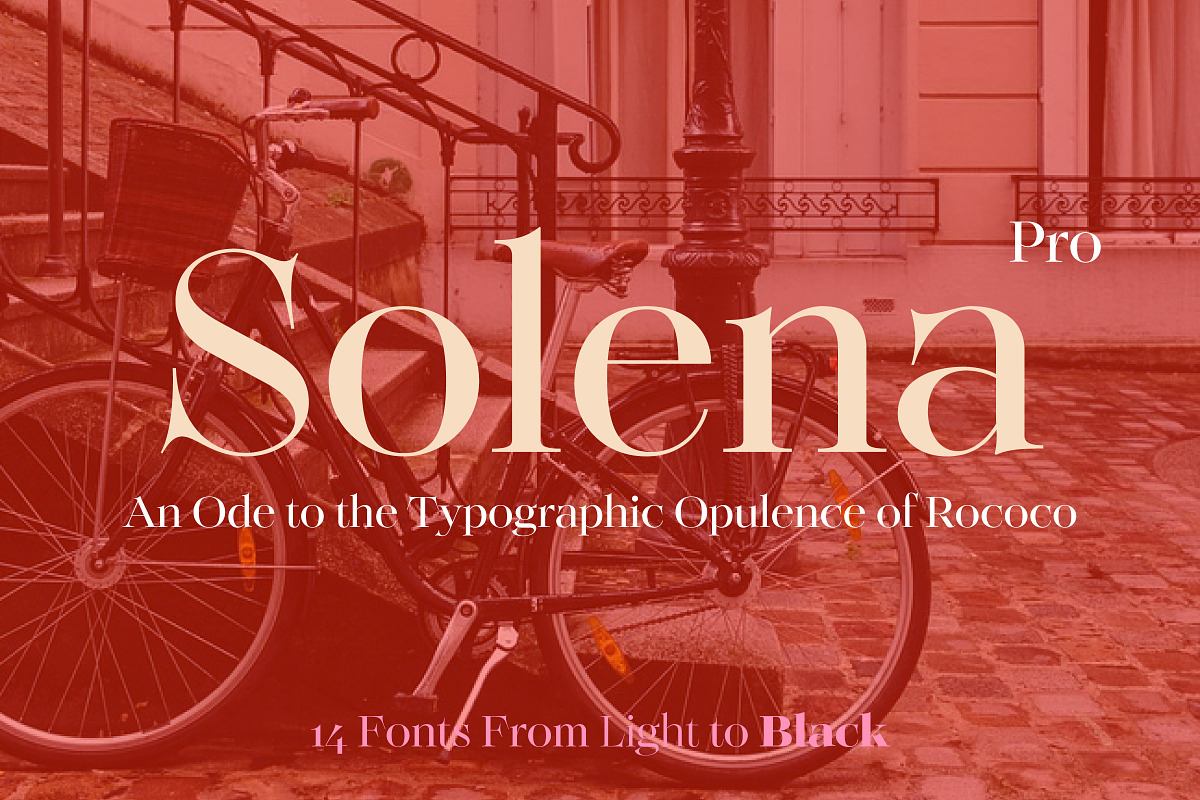
Solena Pro Font Free Download is a refined and contemporary serif typeface that blends timeless elegance with modern design sensibilities. Featuring high contrast strokes, sharp details, and graceful curves, Solena Pro is perfect for editorial layouts, luxury branding, fashion lookbooks, high-end packaging, and sophisticated logo design. It’s a font that speaks with poise and style.
With both uppercase and lowercase letterforms crafted for visual harmony, Solena Pro excels in both headlines and body text. Whether you’re building a sleek brand identity or designing a chic magazine spread, this font adds a polished, upscale feel.